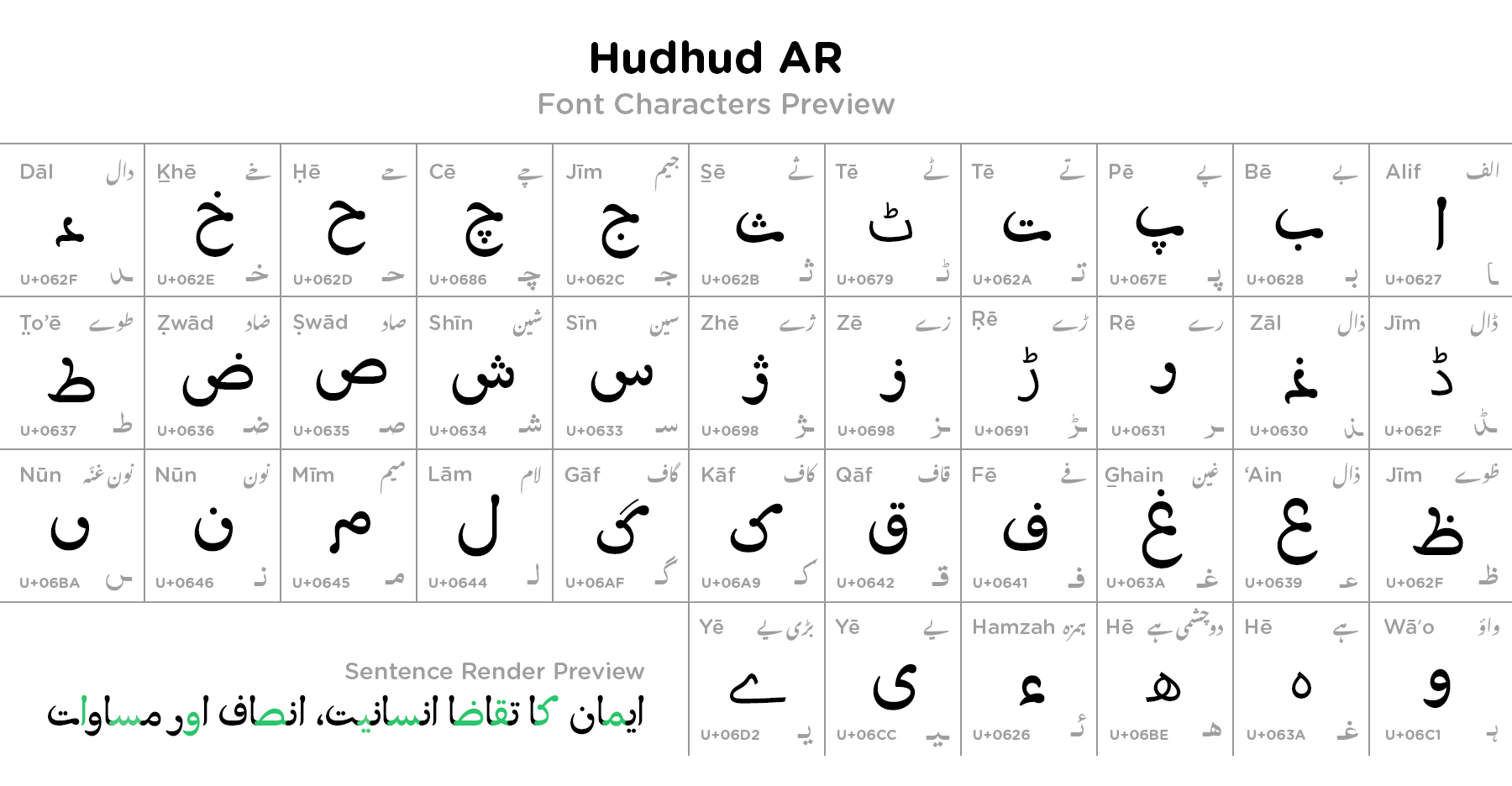
Hudhud AR is an attractive typeface designed by Maha Akl that clearly combines inspirations from the Naskh and Maghribi traditions pleasantly. It is a trademark of TPTQ Arabic Font Software and was released in 2019. It is a decorative curly font with a charset containing 368 symbols and letters and 527 glyphs. This font blends Maghribi’s playful roundness with Naskh’s letterform construction and proportions. Its fluid movement and low contrast give it a modern look and feel. However, it doesn’t contain various OpenType Features. It comes in six different styles and weights, which contributes to its diversity. These styles include: